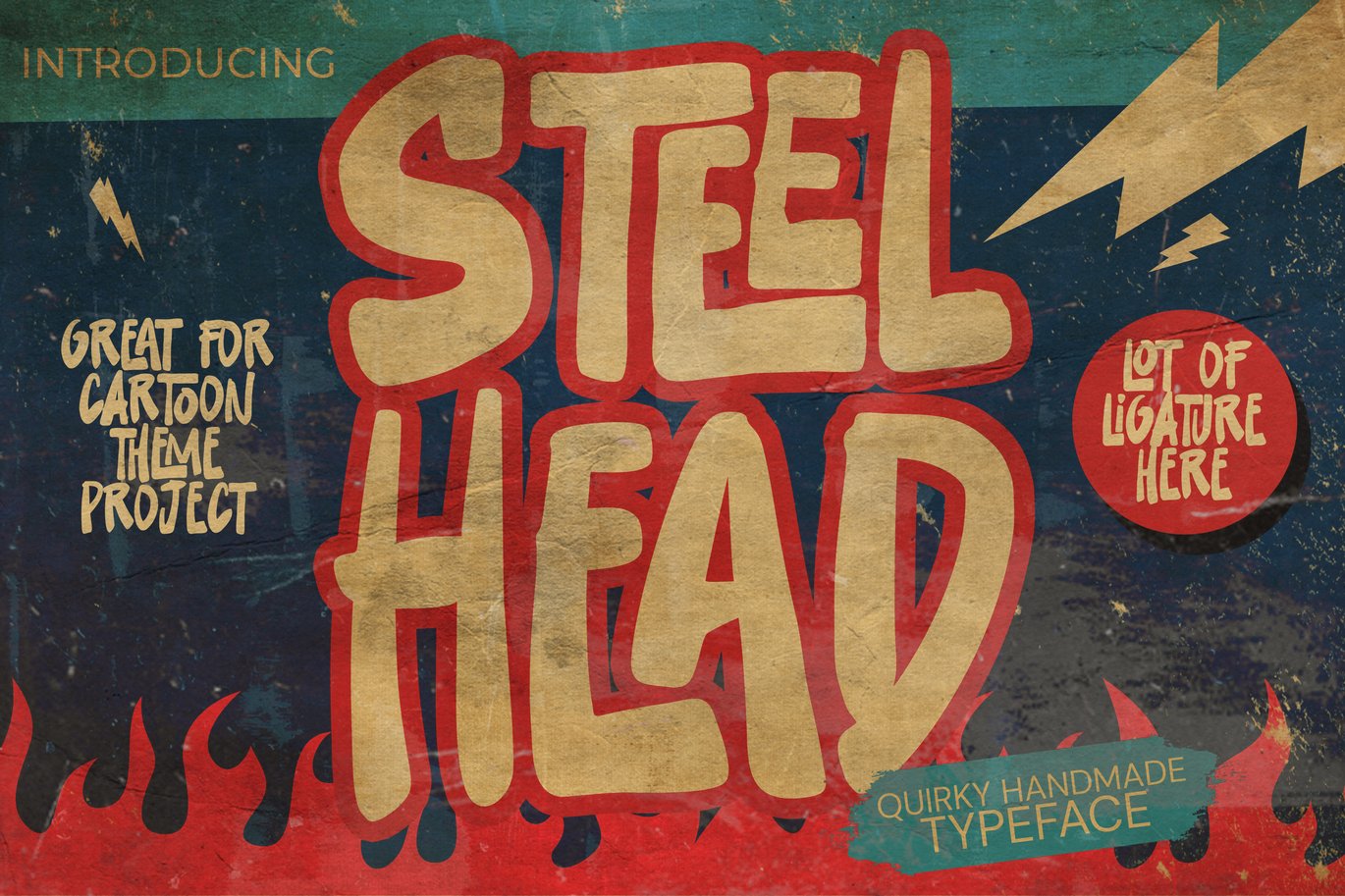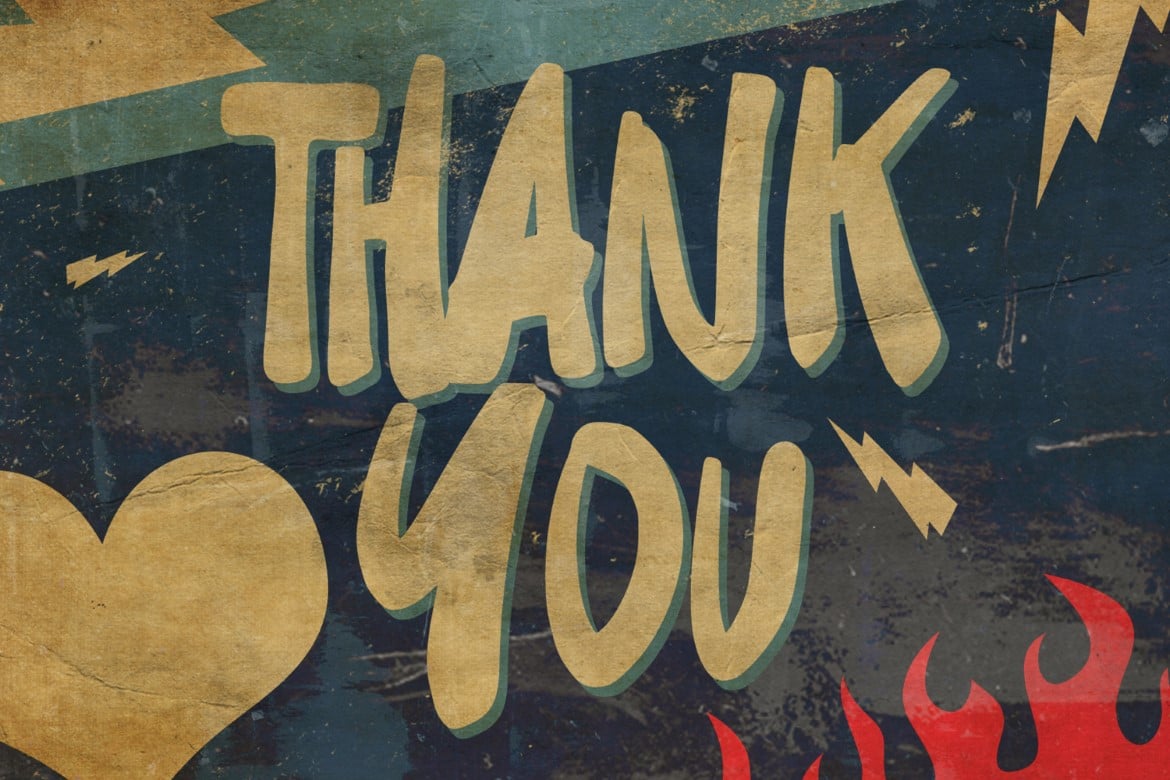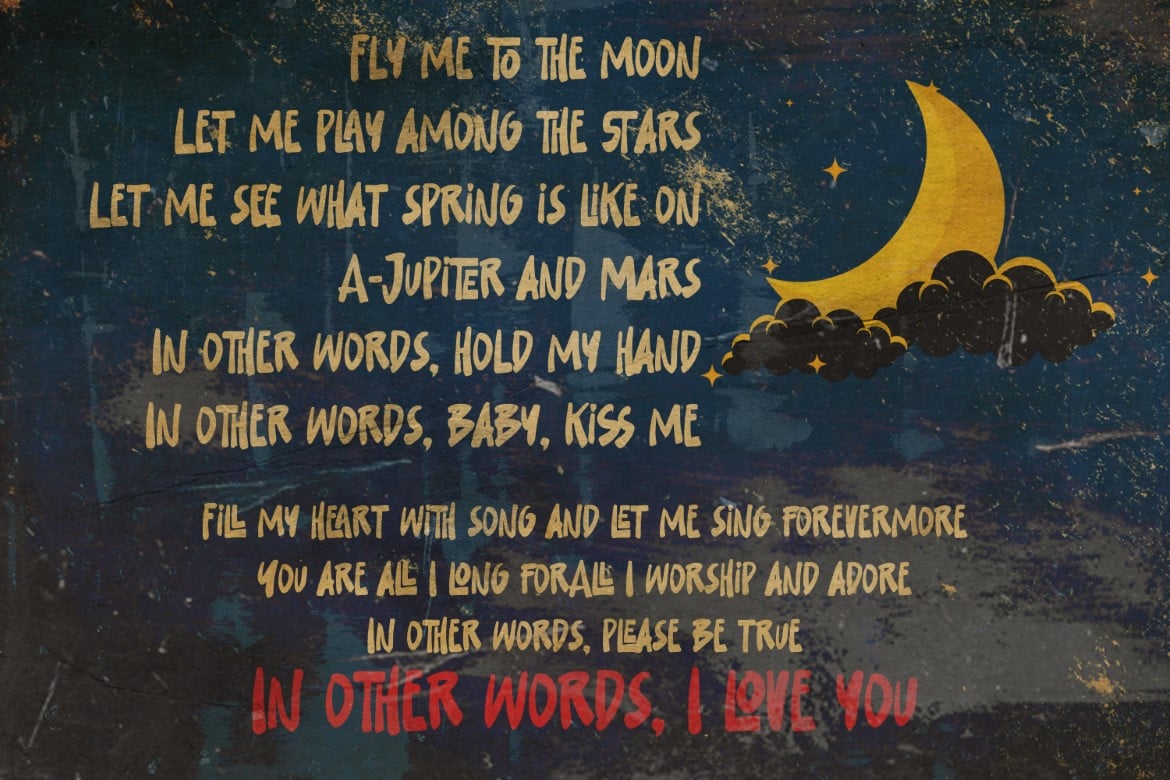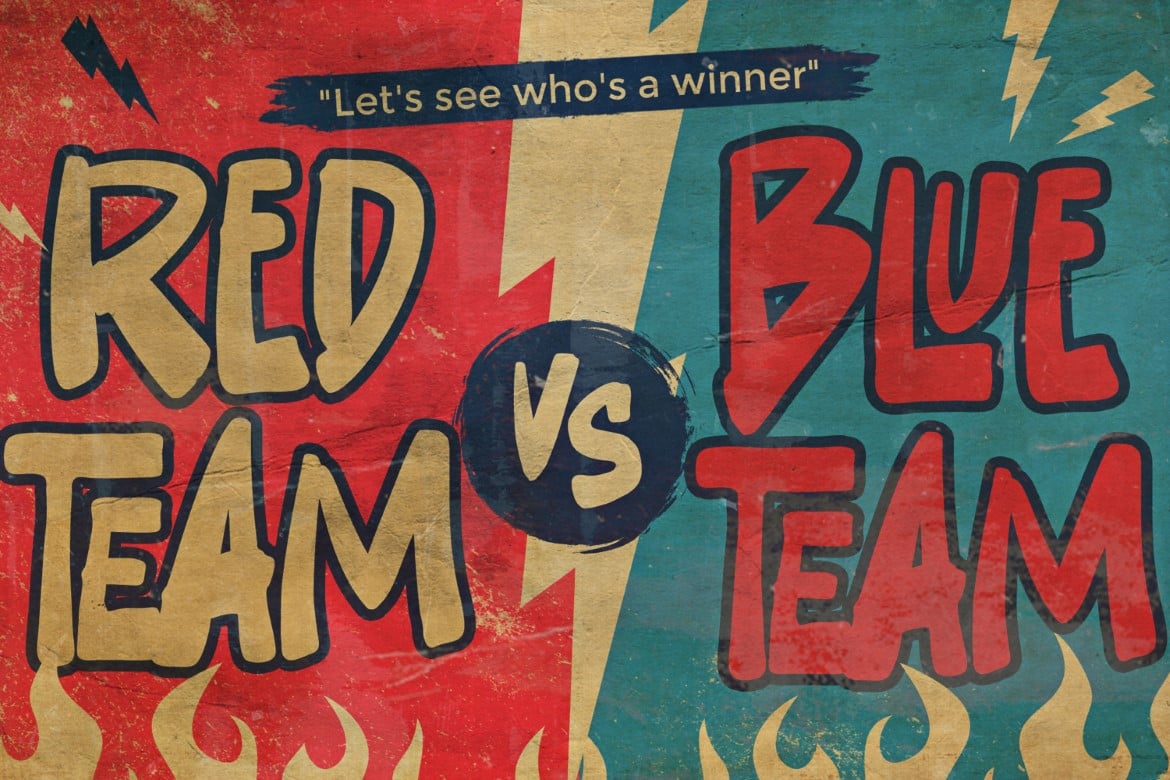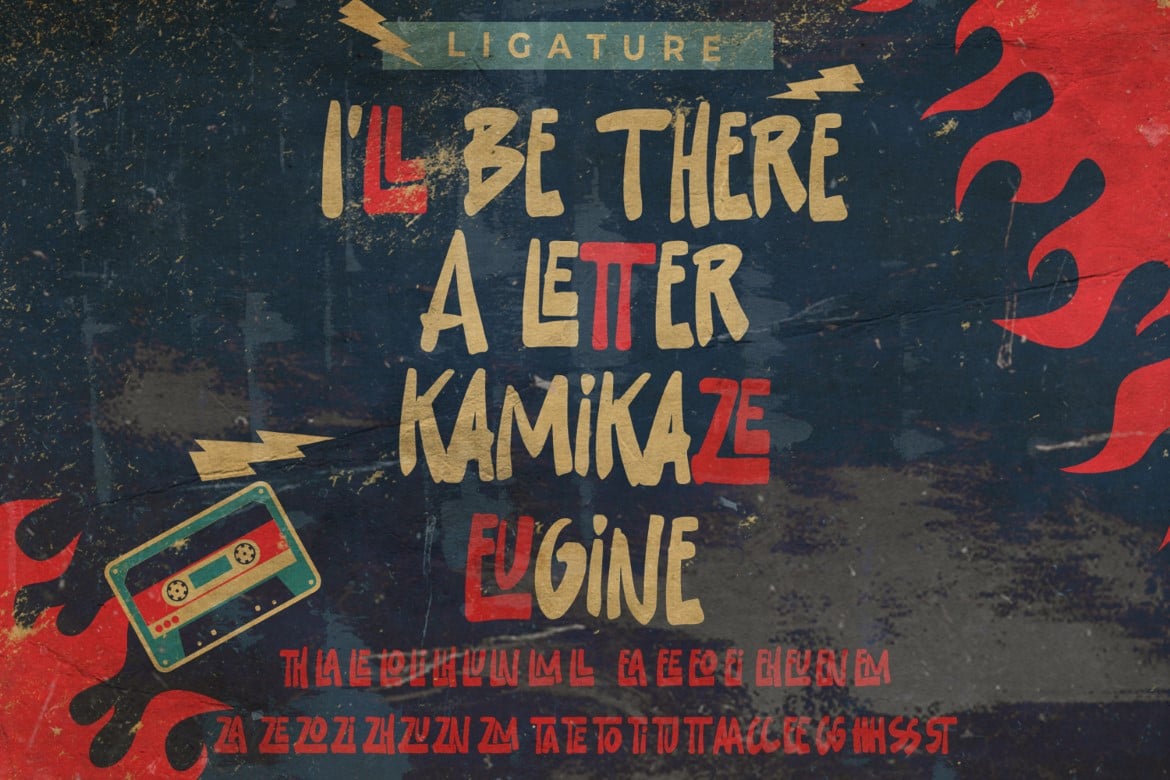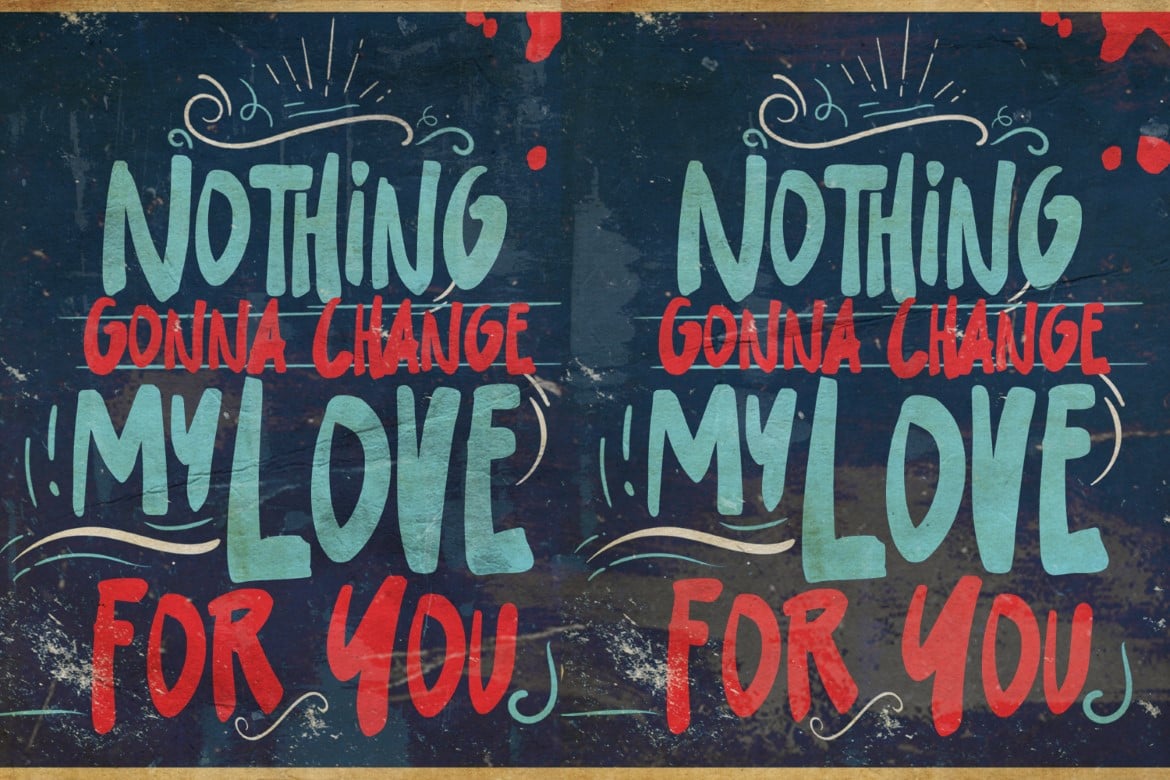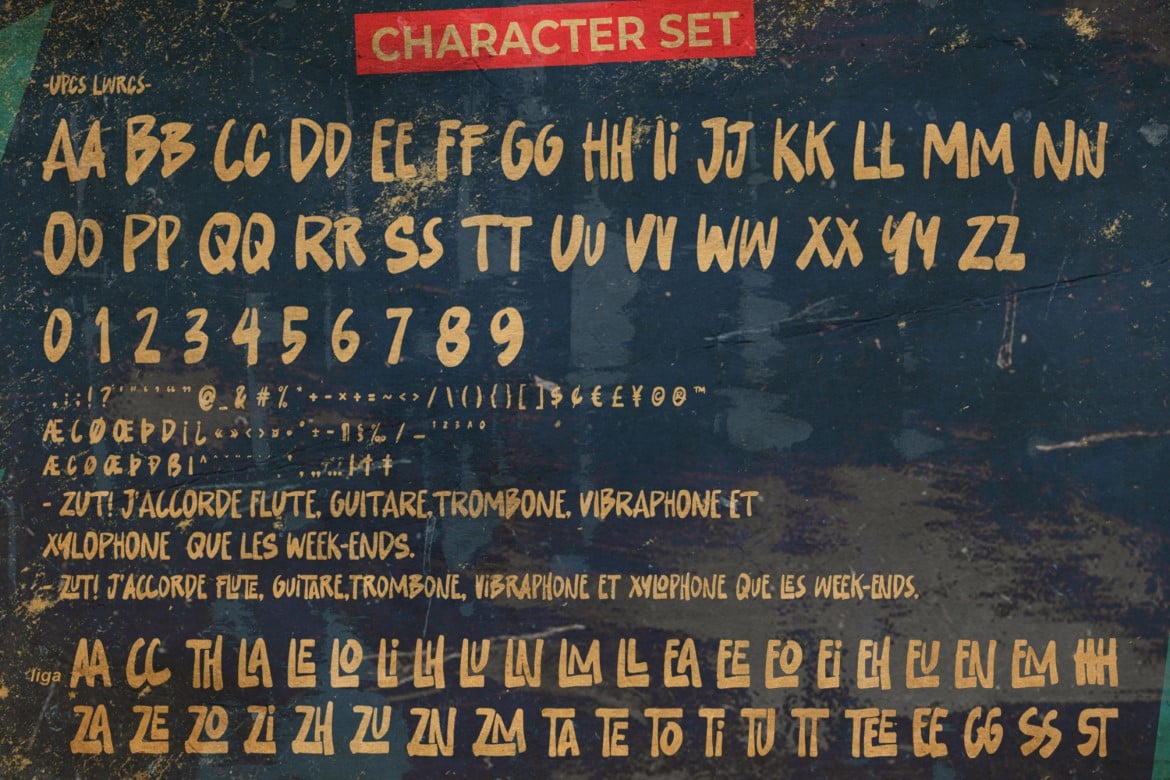
Steelhead – ligature cartoon font
Introducing Steelhead is a cartoon font brush that written casually and quickly.
Letters are made with brushes on Procreate. Then crafted carefully drawn into vector format.
That is why Steelhead has charming, authentic and relaxed characteristic more natural look to your text with a more natural look to your text. You can activate Ligature OpenType panel to make these two styles. It also has many alternatives and ligatures that make your text and design more interesting. Steelhead is perfect for homeware designs,branding projects, Logo design, Quotes product packaging